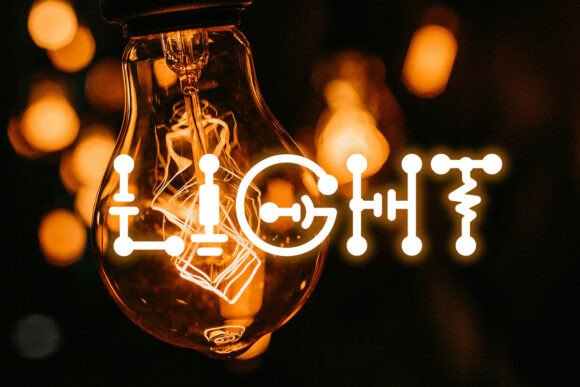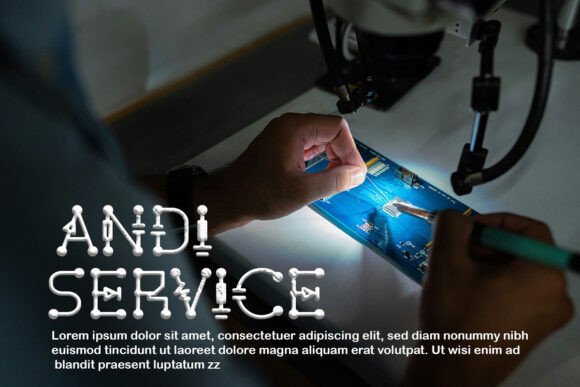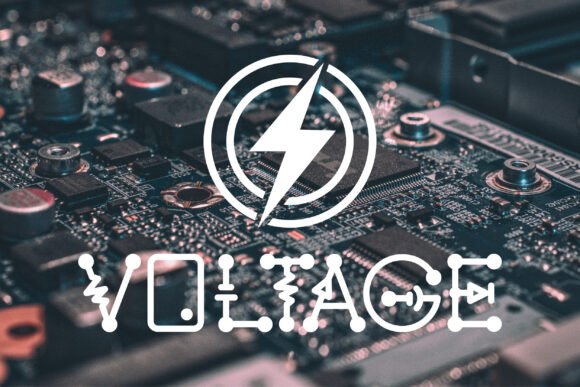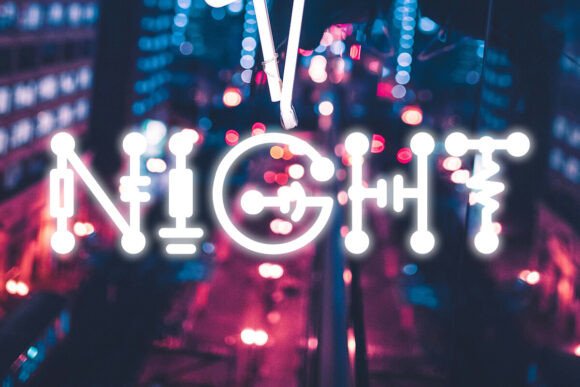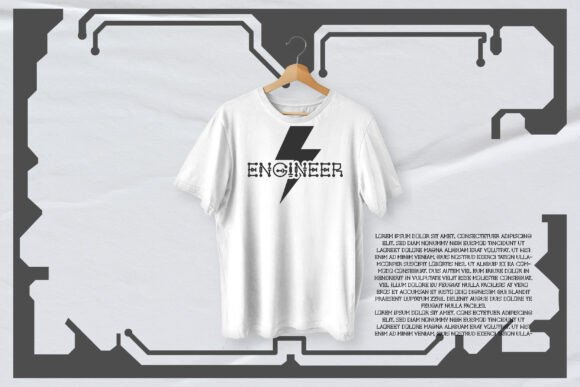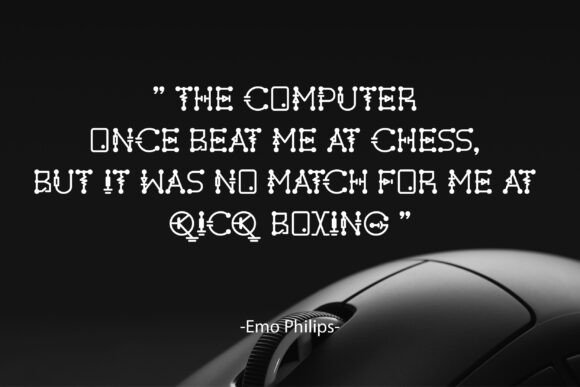
Electro Schematic Font: A Unique Design Element for Electric and Modern Projects
In the world of design, fonts play a crucial role in conveying the message and aesthetic of a project. For designers and crafters working on projects related to electricity, electronics, or modern technology, a font that resonates with the theme can make all the difference. This is where the Electro Schematic Font comes into play. Inspired by the intricate designs of electronic schematic boards, this font is a unique and creative way to add an electric touch to your designs.
What is Electro Schematic Font?
Electro Schematic Font is a specially designed typeface that draws its inspiration from the complex and detailed layouts of electronic schematic boards. These boards are essentially maps that guide the assembly and repair of electronic circuits, featuring a myriad of symbols, lines, and labels. The Electro Schematic Font captures the essence of these visual elements, translating them into a typographic form that is both functional and visually striking.
Characteristics of Electro Schematic Font
The Electro Schematic Font boasts several characteristics that make it stand out:
- Unique Glyphs: The font includes a range of unique glyphs inspired by electronic symbols, which can be used to add an extra layer of thematic coherence to projects.
- Versatility: Despite its specific inspiration, the Electro Schematic Font is versatile enough to be used in various contexts, from digital media to print.
- Readability: Carefully designed to ensure readability, the font is suitable for both headings and body text, making it a practical choice for a wide range of applications.
- Modern Aesthetic: The font’s design gives it a distinctly modern look, perfect for projects that require a contemporary edge.
Use Cases for Electro Schematic Font
Given its unique design and versatile nature, the Electro Schematic Font can be used in a variety of projects, including:
- Social Media Graphics: Create engaging posts and stories for social media platforms that focus on technology, electronics, or DIY projects.
- Service Logos: Design professional and memorable logos for businesses related to electrical services, electronics repair, or tech startups.
- Educational Materials: Enhance textbooks, workbooks, and online courses related to electronics, electrical engineering, or technology with a font that directly relates to the subject matter.
- Marketing and Advertising: Use the font in brochures, flyers, and online ads targeting tech-savvy audiences or promoting electronic products.
Why Choose Electro Schematic Font?
Choosing the right font for your project can be daunting, but here are a few reasons why Electro Schematic Font could be the perfect choice:
- Relevance: For projects related to electricity or electronics, the font’s thematic relevance can enhance the project’s visual impact and thematic coherence.
- Originality: Stand out from the crowd with a font that offers a fresh and distinctive look.
- Support for Diverse Projects: Whether you’re working on a digital project, a print publication, or a craft, the Electro Schematic Font can adapt to your needs.
How to Use Electro Schematic Font Effectively
To get the most out of the Electro Schematic Font, consider the following tips:
- Mix and Match: Combine the font with other typefaces for contrast, especially for body text versus headings.
- Play with Sizes: Utilize different font sizes to create visual hierarchy and emphasize key points.
- Experiment with Colors: While the font itself is inspired by electronics, don’t be afraid to experiment with vibrant or metallic colors to enhance its thematic relevance.
In conclusion, the Electro Schematic Font is a unique and versatile design element that can add a thematic and aesthetic edge to projects related to electricity, electronics, and modern technology. Its distinctive look, combined with its readability and versatility, makes it a valuable asset for designers and crafters looking to create impactful and memorable work.